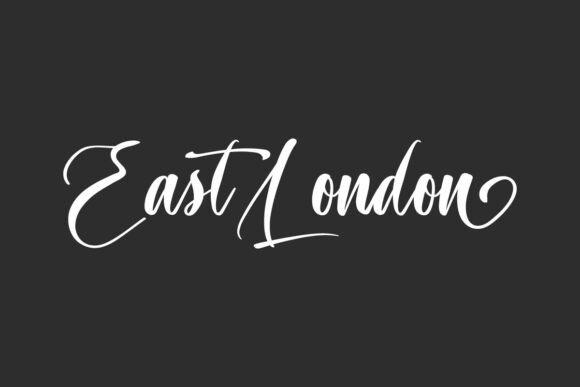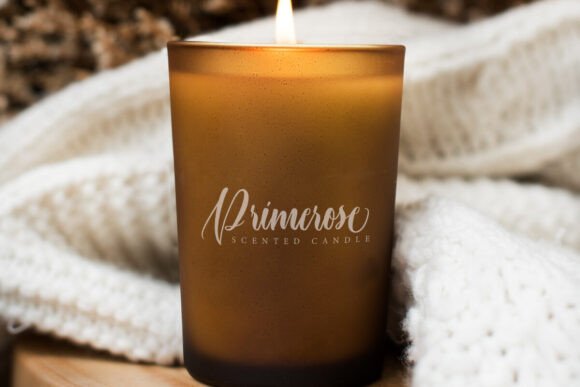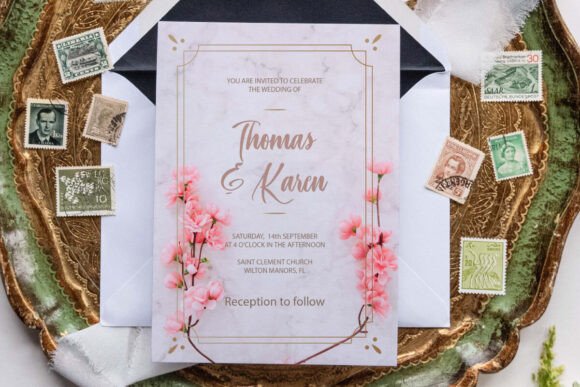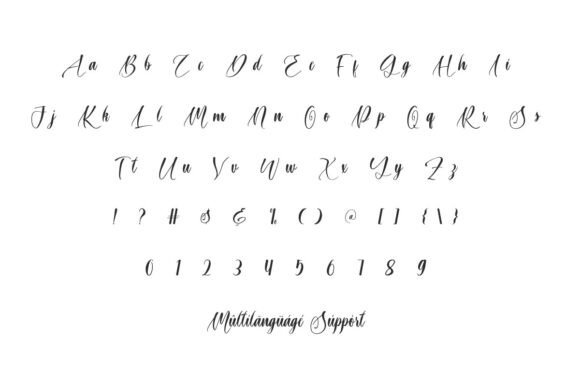
East London Font: Elegant Script for Wedding Invitations & Branding
About the East London Font
Introducing the East London Font, a beautifully crafted typeface designed to elevate your creative projects. East London Font is a classy beautiful script font with calligraphic style by VinType Studio. This font has a natural handwriting style with beautiful flowing lines. It will be good for many designs, such as brochure, cover, custom design, gift box, invitation, label, poster, product packaging, quote, screen printing, stationery, website, and more!
Its elegant, slightly informal calligraphic style makes East London Font ideal for headlines, short text blocks on invitations or packaging, and logos requiring a touch of sophistication. It shines in branding projects emphasizing handcrafted quality or a vintage aesthetic. Avoid using it for body text or UI elements; its flowing nature hinders readability in extended passages.
Pairing East London Font with a clean sans-serif like Open Sans for body copy creates excellent contrast and visual balance. For a more modern feel, a geometric sans-serif such as Montserrat would also complement its curves. A simple serif like Lora could add a touch of classic elegance.
The font projects a sophisticated yet approachable personality, lending itself well to brands aiming for a balance between luxury and approachability.
East London Font Example